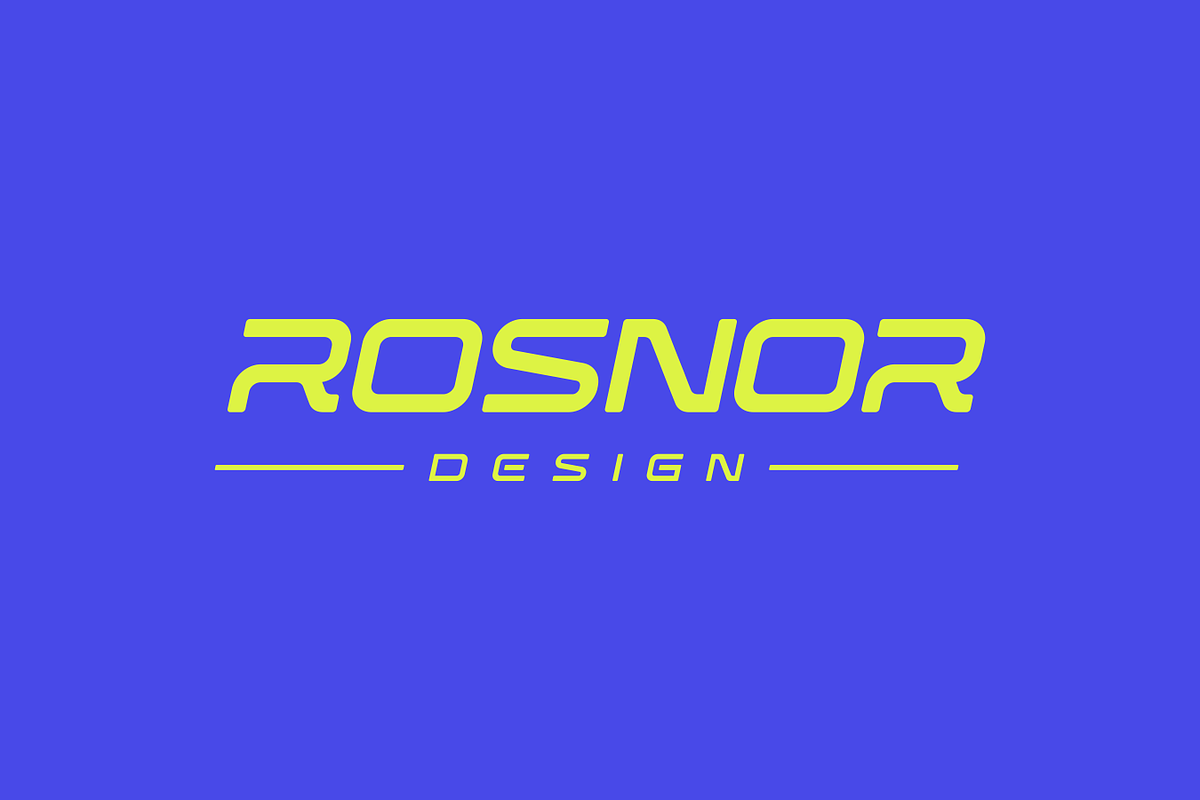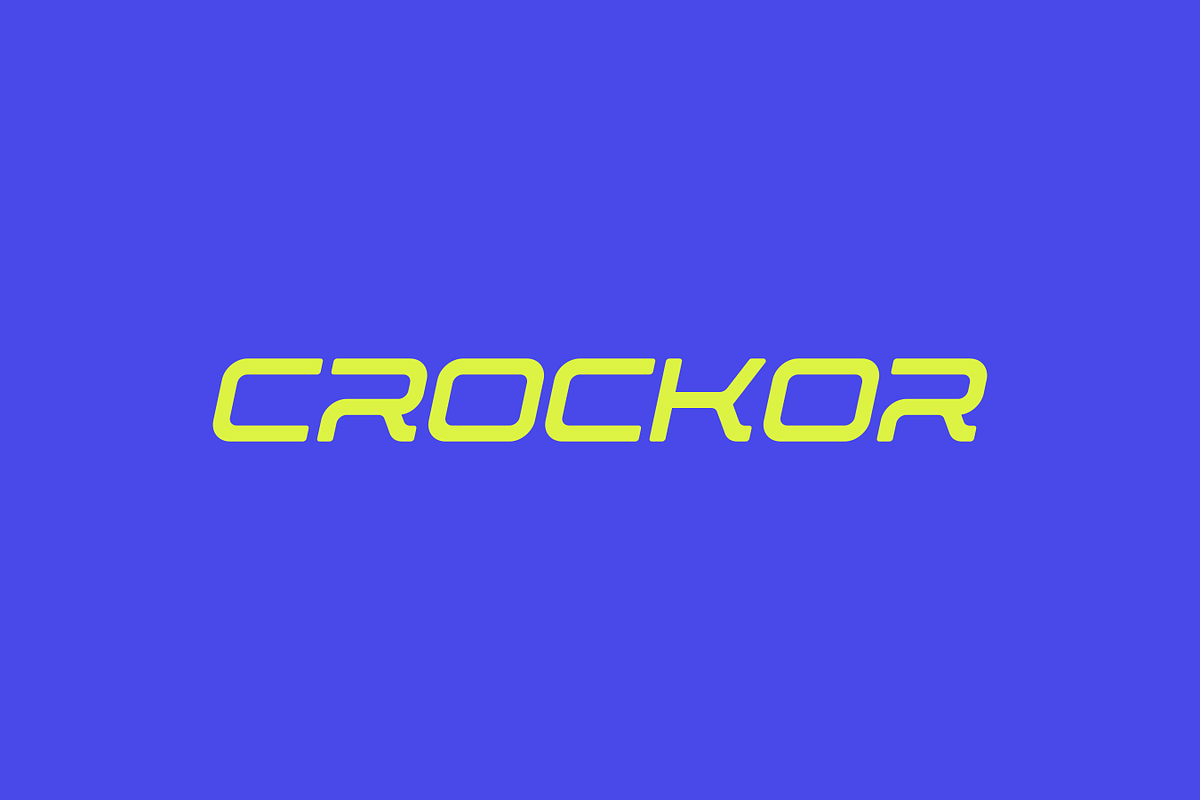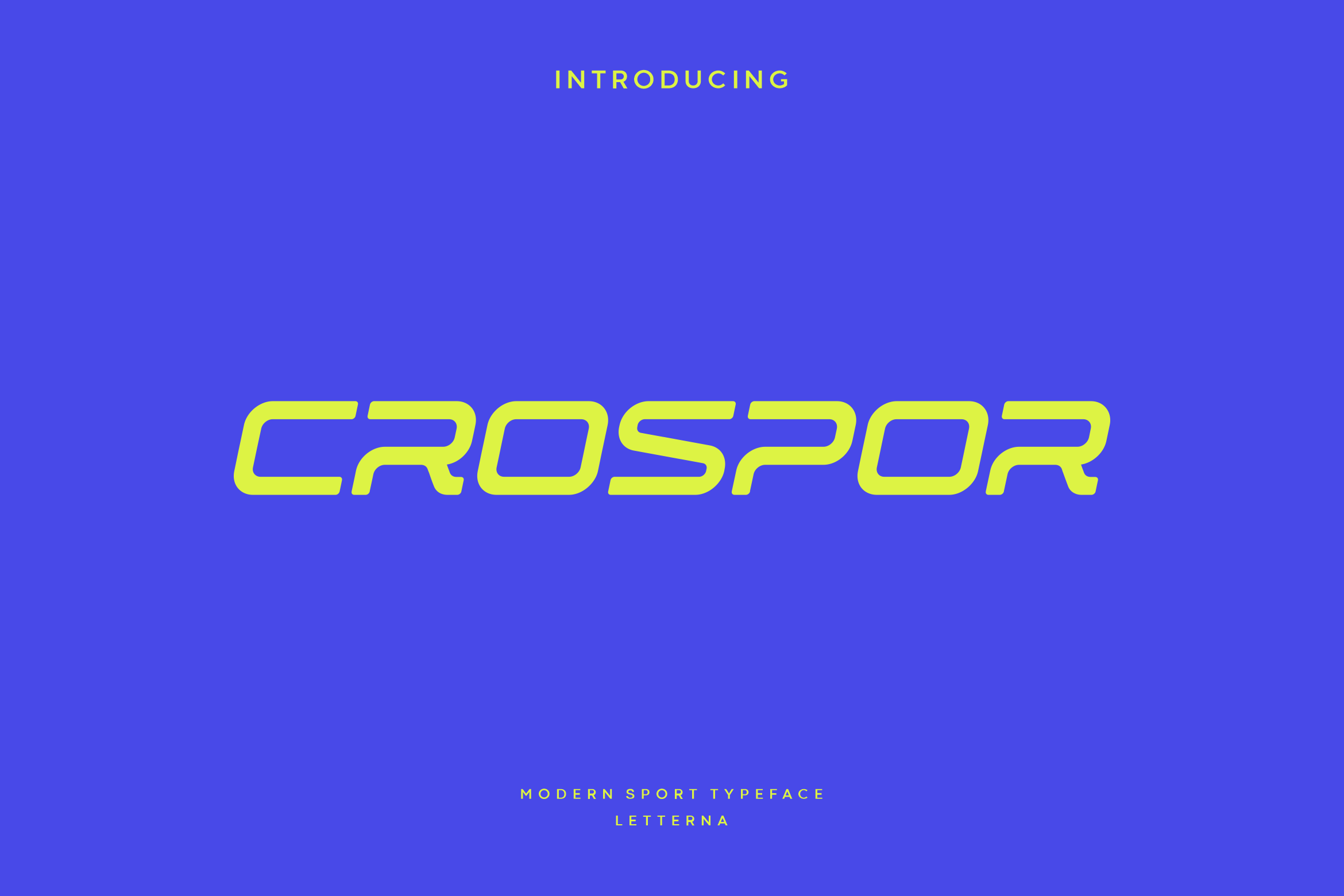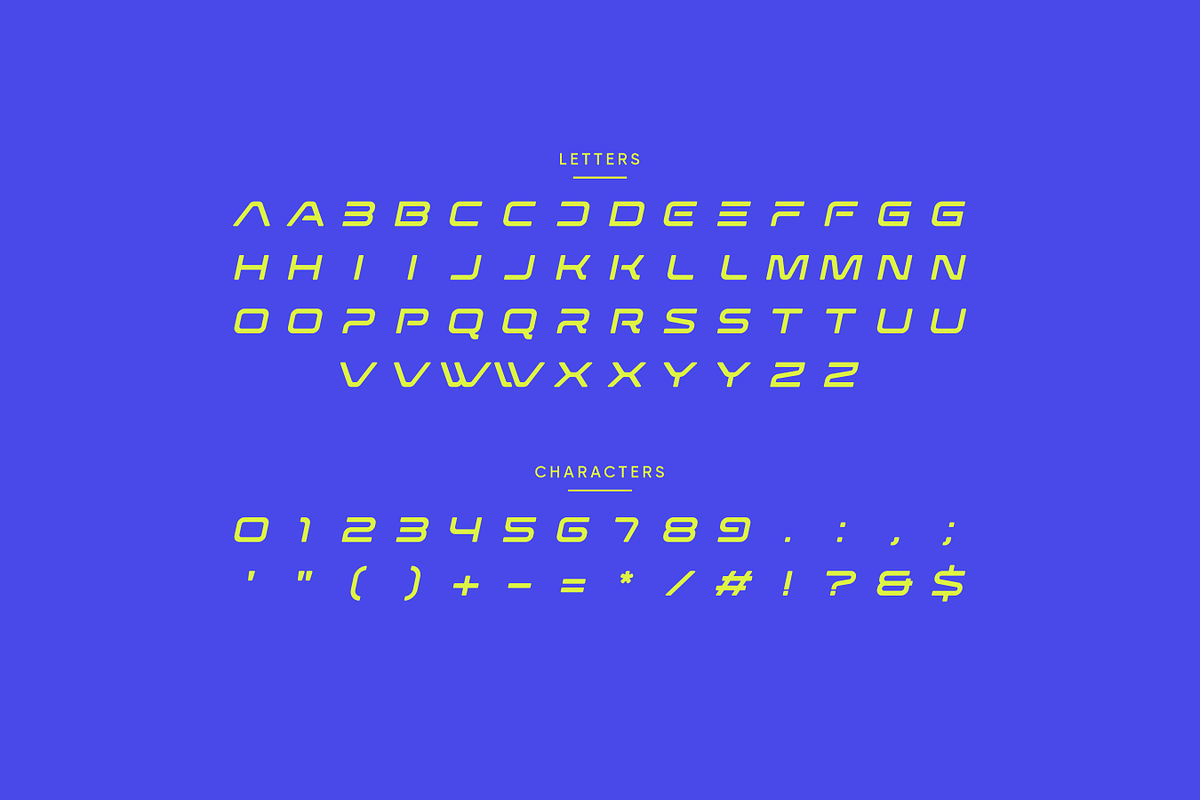
Crospor - Modern Sport Typeface
Crospor is a modern display font built specifically for sports branding, with minimalist and elegant style. This font comes with sophisticated, elegant and fresh all-caps style, making it timeless. Crospor will make your design more memorable, it’s perfect adding this font for logo, branding, poster, magazine, digital ads, tech, action sport and future themes.